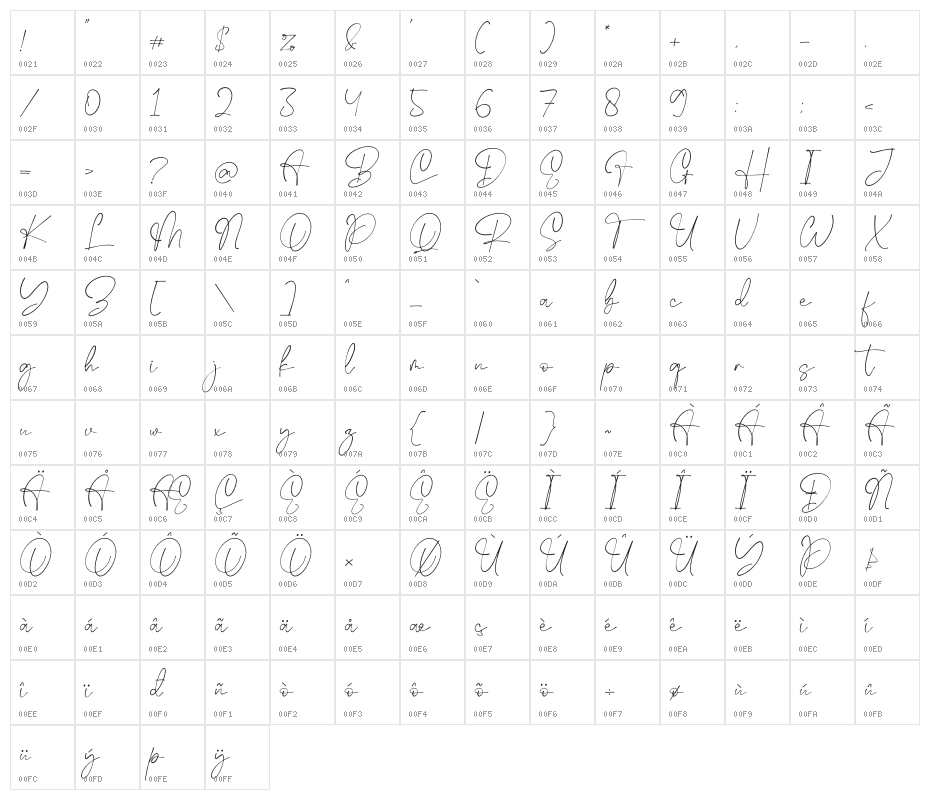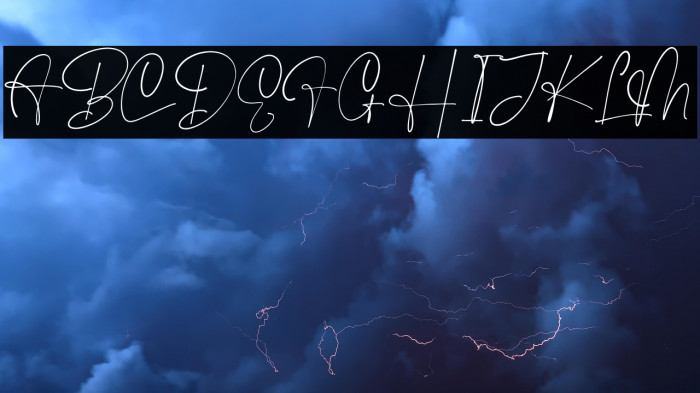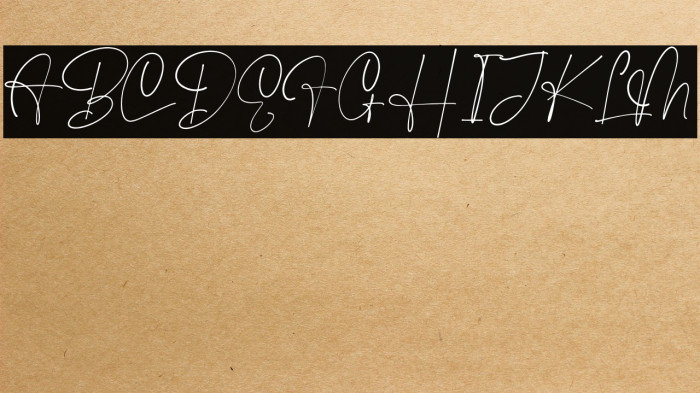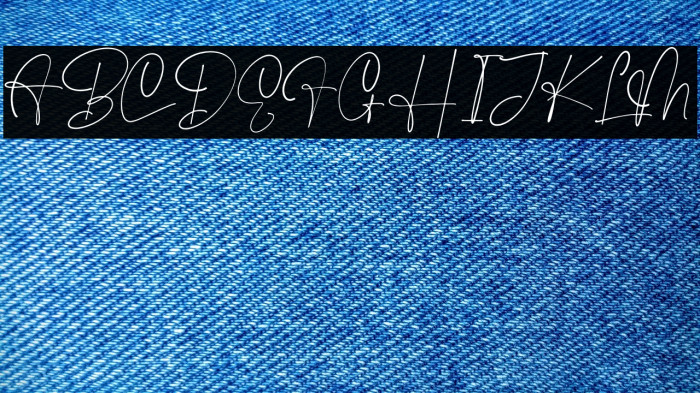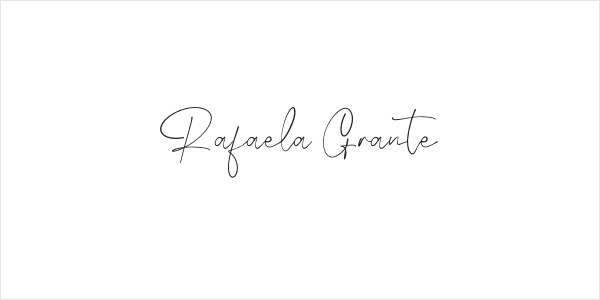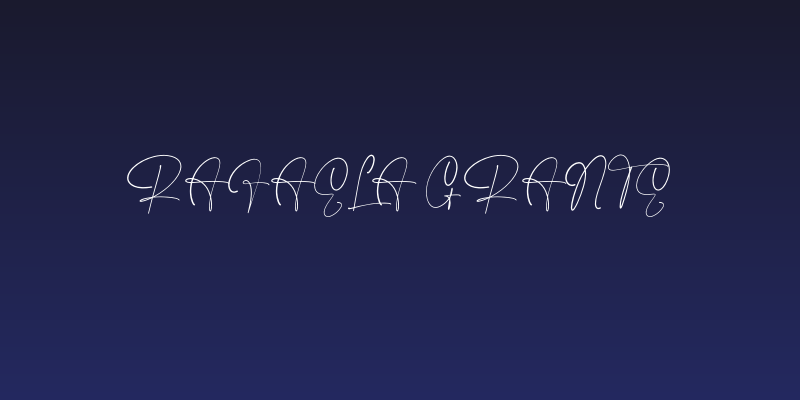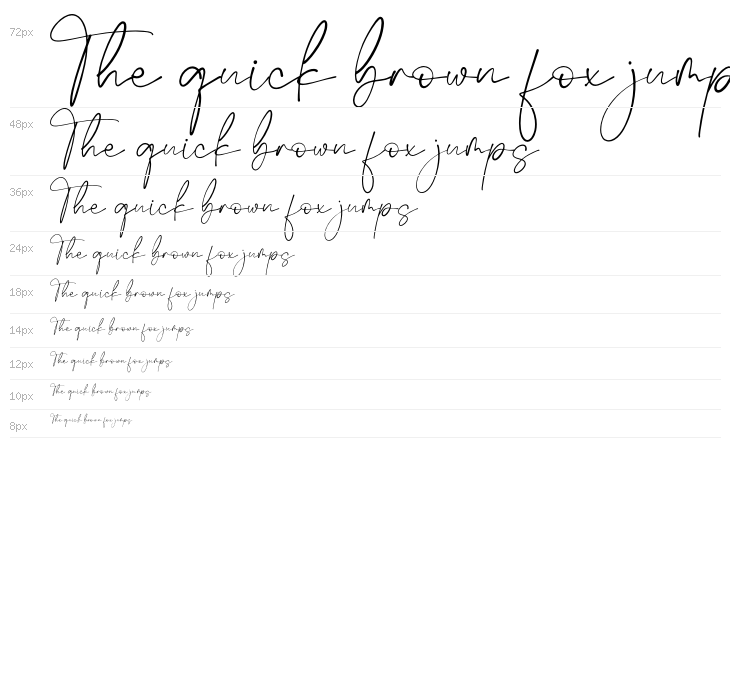
Rafaela Grante Font
Rafaela Grante Description
This font features an elegant and flowing script style with a handwritten appearance. The letters are connected in a cursive manner, giving it a fluid and dynamic look. The strokes are thin and delicate, adding a sense of sophistication and grace. The uppercase letters are slightly more ornate, while the lowercase letters maintain a consistent flow. Numbers and special characters are designed to match the overall aesthetic, ensuring a cohesive look across all text. This font is ideal for projects that require a personal touch or a sense of elegance.
Overall StyleElegant, Handwritten
Use CaseLogos, Invitations, Personal Branding
Proposed ProjectsIdeal for wedding invitations, personal branding, greeting cards, and elegant logos.